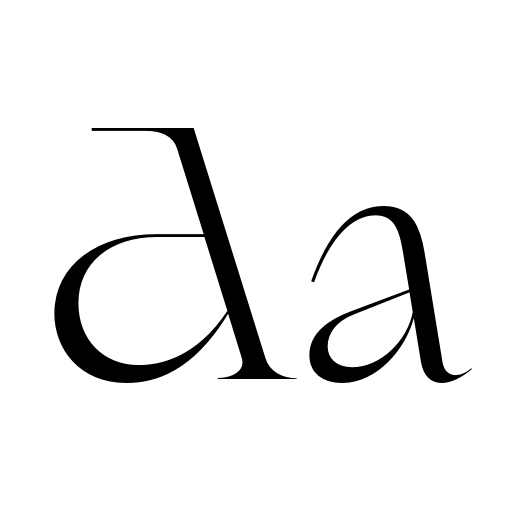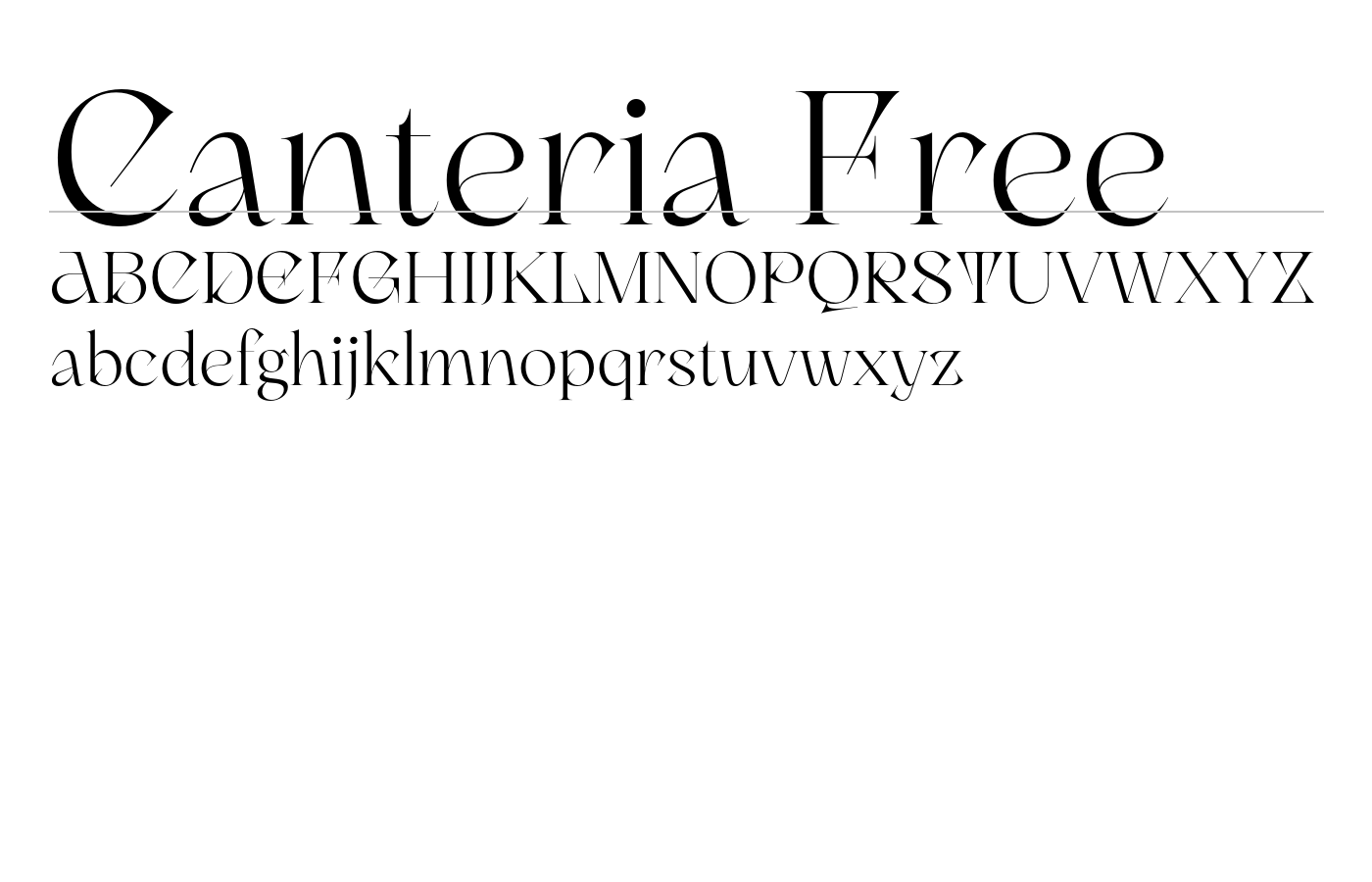
Canteria Free is an elegant serif font that blends modern sophistication with artistic flair. Featuring high contrast strokes, thin sharp serifs, and unique angular details, it creates a refined yet distinctive look perfect for luxury branding, editorial headlines, and creative logo design. Its stylish, graceful letterforms make it ideal for projects seeking a blend of classic beauty and contemporary edge.
Canteria Free Font
About Canteria Free Font